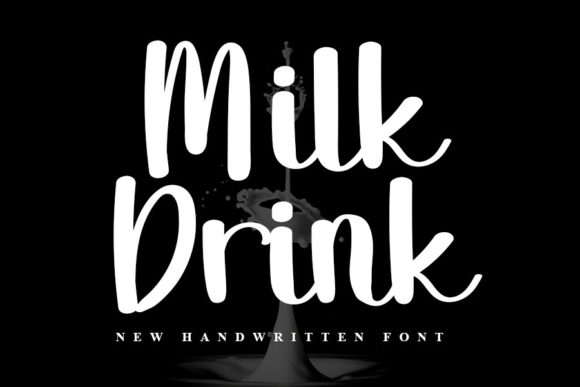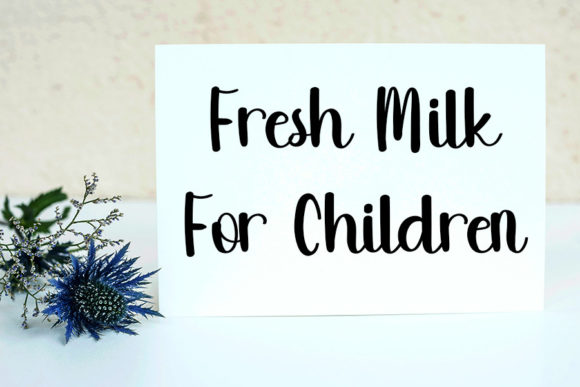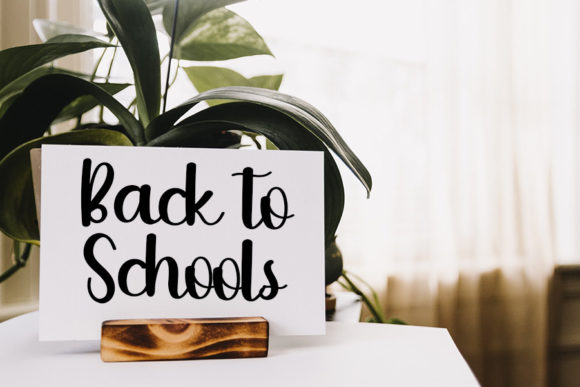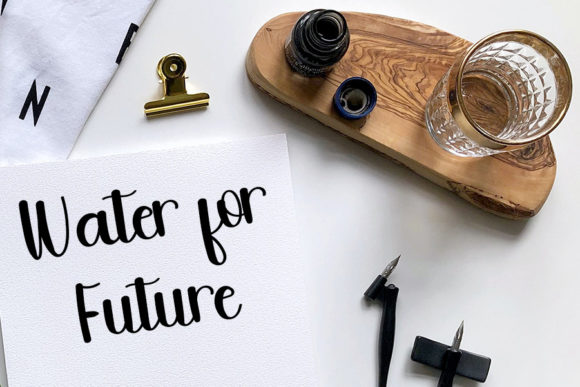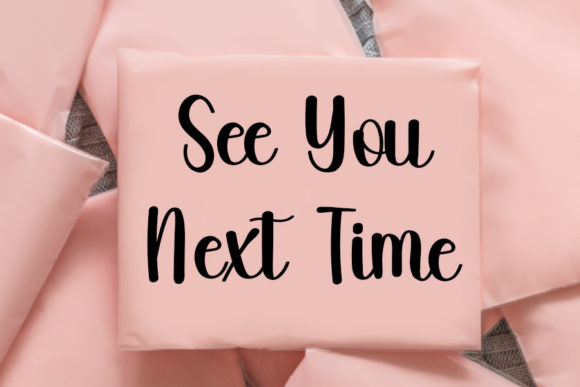
About Milk Drink Font
Milk Drink is a delicate, elegant and flowing handwritten font. It has beautiful and well balanced characters and as a result, it matches a wide pool of designs. Add it to your most creative ideas and notice how it makes them come alive!